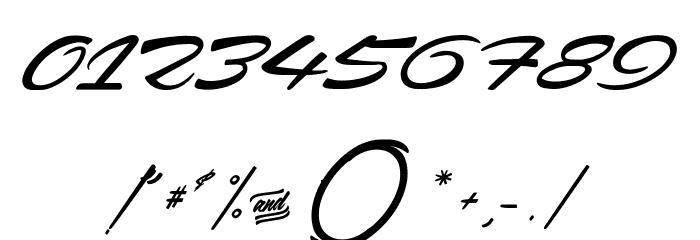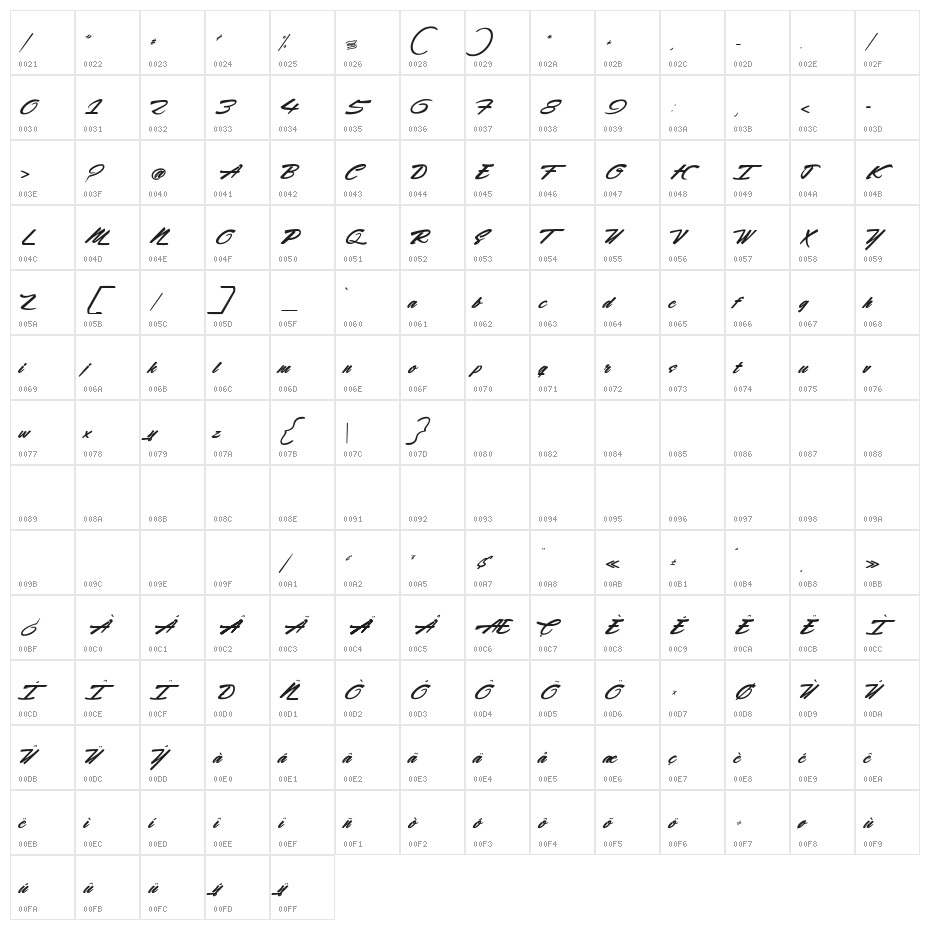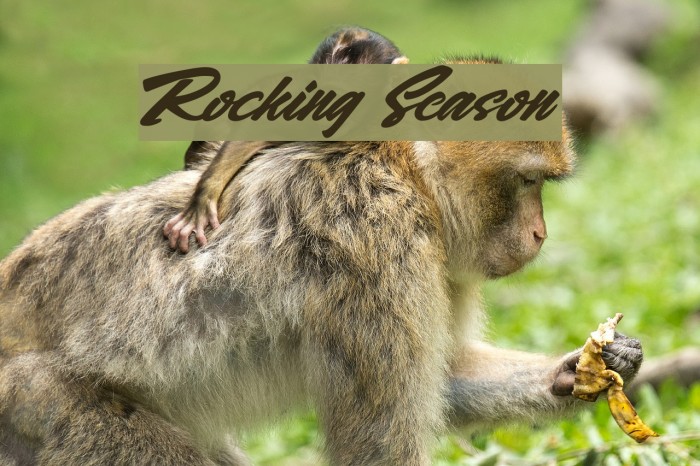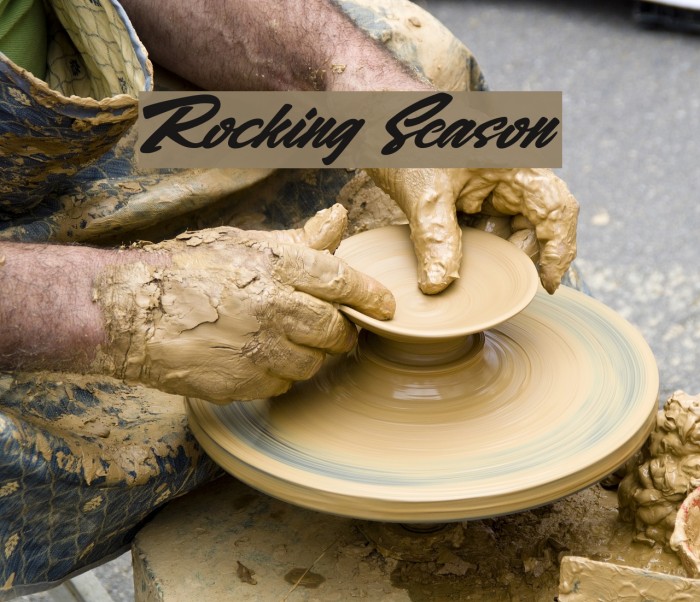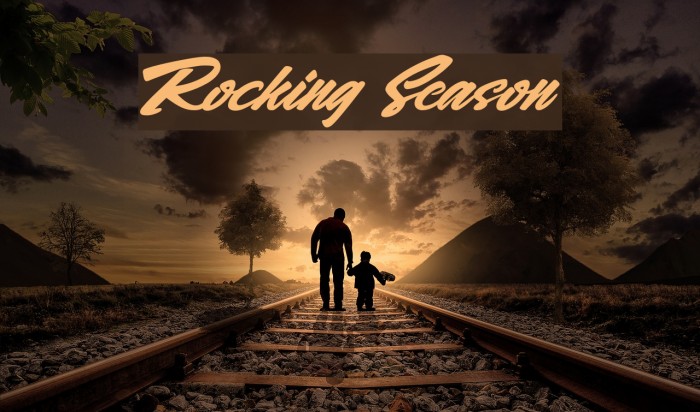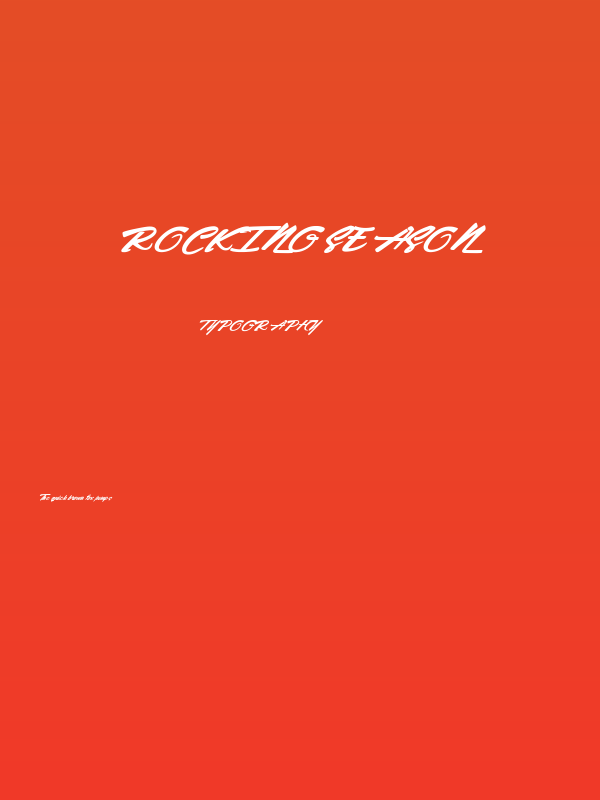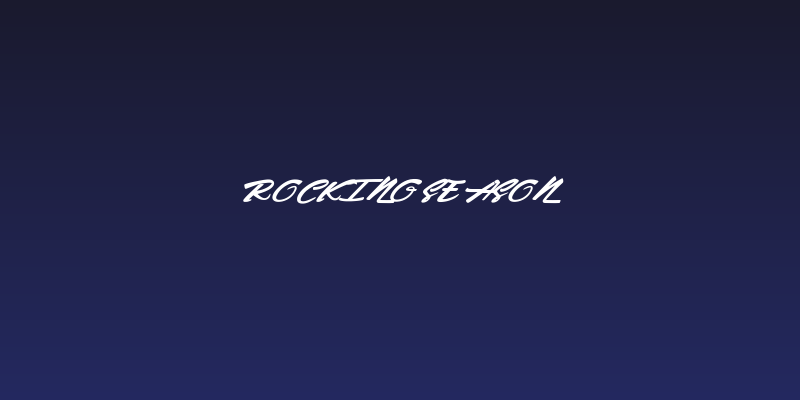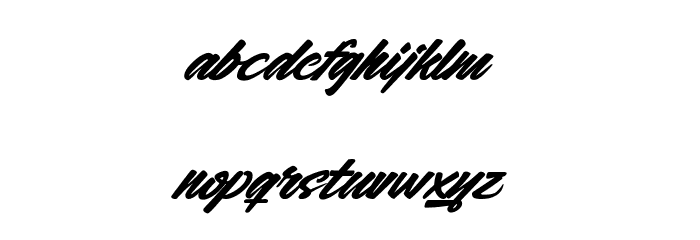
Rocking Season Font
Rocking Season Description
This font exhibits a bold and dynamic script style with a strong sense of movement and flair. The uppercase letters are characterized by sweeping curves and sharp angles, giving them a sense of energy and rhythm. The lowercase letters maintain a consistent flow, with smooth connections between characters, enhancing the cursive appearance. The numerals are equally stylized, with a unique flair that complements the overall design. Special characters are creatively integrated, maintaining the font's energetic and stylish theme. This font's bold strokes and artistic flair make it stand out, ideal for projects that require a touch of elegance and expressiveness.